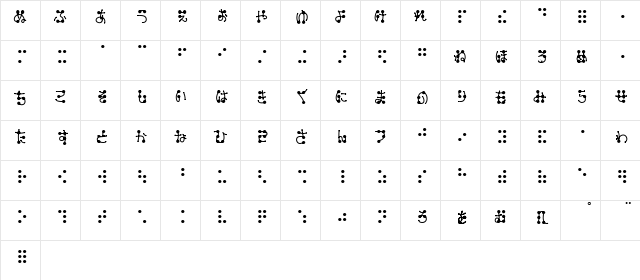
tentenhiragana Regular
tentenhiragana offers clean, dependable letterforms without strong stylistic allegiance, making it a practical choice for designers who need flexibility.